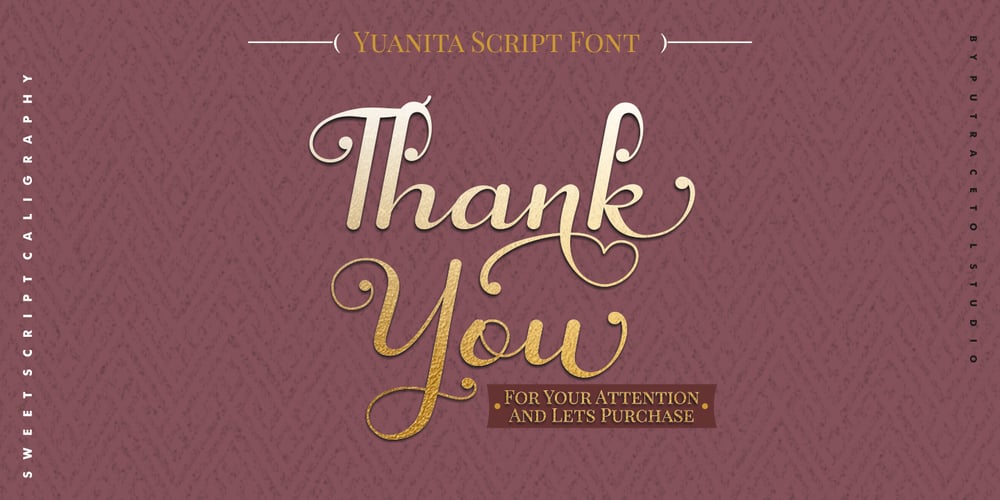
Yuanita Font Family was designed by Putra Novembria Candra Kusuma and published by Putracetol. Yuanita contains 1 styles and family package options. Yuanita is a beautiful modern calligraphy font. A modern script with a handmade calligraphy style. This font is feminime, elegant, messy and modern. Yuanita perfect for wedding event, anniversary, birthday, greeting cards, logotype, branding, wedding invite and card, elegant logo, poster, packaging, stationery, website, and any other projects requiring a handwritten and luxurious touch. Includes OpenType feature with a lot of alternates to help you to make great lettering. This font also supports multiple languages.